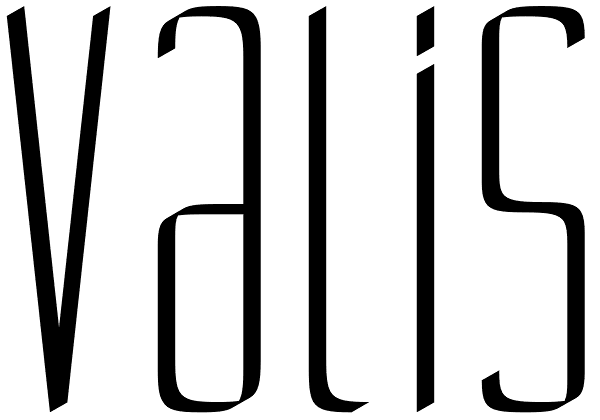
Valis
Valis is a thin, futurist, lightweight font, a sister font to my other design Ebdus. Valis has more of a 3D Angular feel. This font is an omnicase font, with capitals, capital-lowercase and lower case letters available. Lowercase letters are...